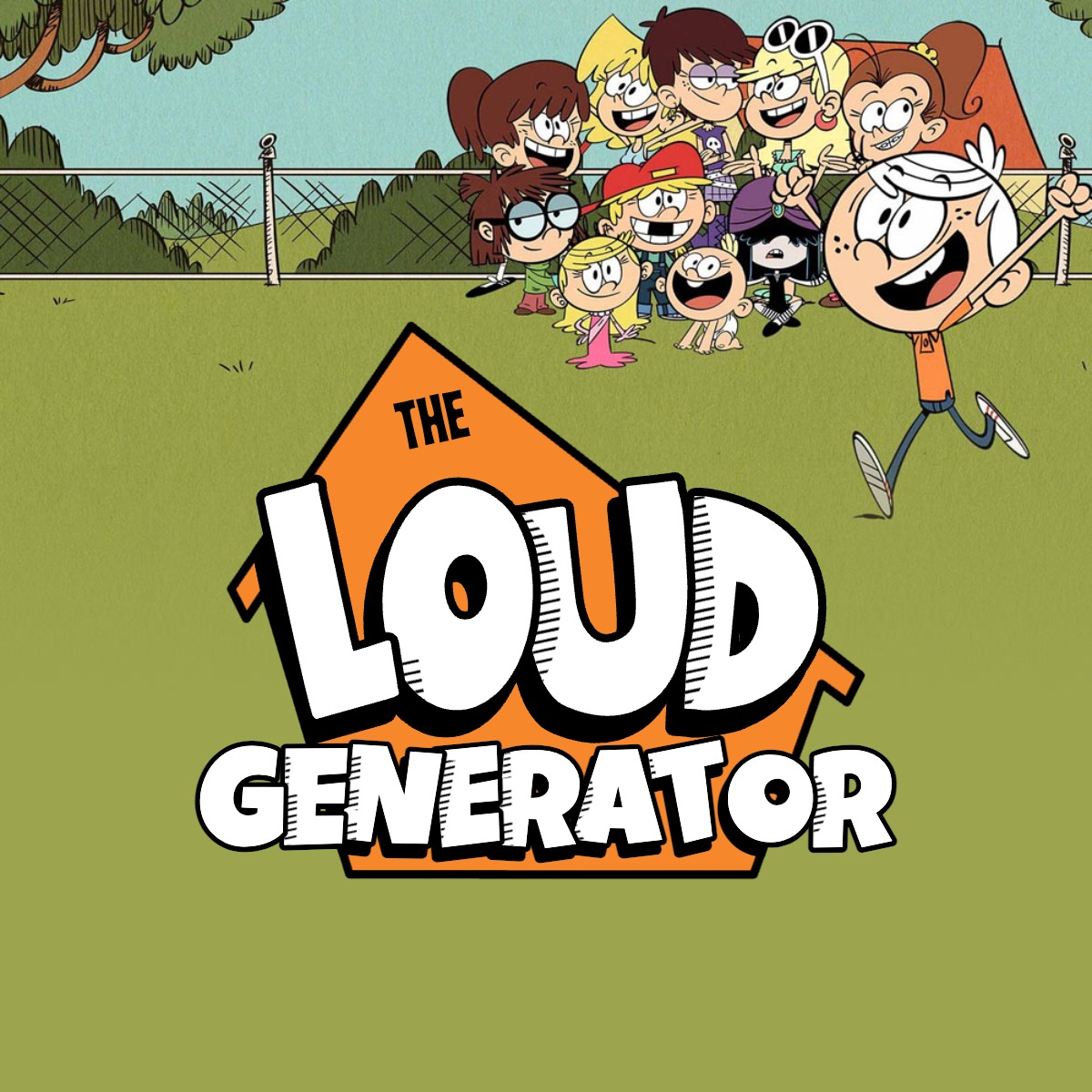
The Loud House Font and Logo Generator
The Loud House has one of the most distinctive title cards in modern animation. Bold white letters with thick black outlines, diagonal hatching shadows, and an orange house silhouette framing everything — it is a design that reads instantly, even at a glance. This generator lets you recreate that look with any text you choose and download the result as a full-resolution image.
Text Sizing and the House Shape
The generator places the top text (“THE” position) inside the orange house silhouette, clipped to the polygon so that only the portion within the shape is visible — exactly as in the original. The width available for each line of top text varies depending on where that line falls within the triangular roofline, so text near the peak is constrained to a narrower space than text lower in the shape. The generator calculates this automatically based on the actual house outline.
The main large text and bottom text sit centred over the house, and the house scales its width to match the widest line of main text. Shorter words produce a smaller house shape; longer words or phrases expand it proportionally up to the canvas edge.
About The Loud House
The Loud House premiered on Nickelodeon in May 2016, created by animator Chris Savino. The show centres on Lincoln Loud, an eleven-year-old boy navigating life as the only son among ten sisters in a chaotic family home in the fictional town of Royal Woods, Michigan. Each sister has a defined personality and aesthetic, from the rock-obsessed Luna to the gothic Lucy, giving the show a broad cast to rotate through storylines.
The series drew on influences from classic newspaper comic strips, particularly in its visual language — flat colour palettes, heavy outlines, and expressive character designs that feel rooted in mid-twentieth-century cartooning rather than the more fluid digital styles common in contemporary animation. That sensibility carries through to the logo, which uses chunky slab-like letterforms and manual-looking shadow hatching rather than anything that looks computer-generated.
The Show’s Impact and Expansion
The Loud House quickly became one of Nickelodeon’s highest-rated original series. It ran for multiple seasons and spawned a spin-off series, The Really Loud House, which translated the animated concept into a live-action format. A feature-length animated film, A Loud House Christmas, was released on Netflix in 2021, marking the first Nickelodeon animated original to appear on that platform. The franchise has also extended into comics, merchandise, and video games, cementing it as one of the more durable properties in recent Nickelodeon history.
The show was notably praised for its representation, featuring one of the first recurring gay married couples in a Nickelodeon animated series. It also introduced Lincoln’s friend Clyde McBride early in the run, and their friendship became a consistent throughline across the series.
The Visual Identity of the Logo
The Loud House title logo is built around three layered typographic elements stacked within and around an orange house-shaped silhouette. The word “THE” sits in small, slightly tilted lettering near the peak of the roof. “LOUD” dominates the centre in oversized white letterforms with rounded corners and a pronounced black stroke. “HOUSE” sits below in a slightly different typeface variant with a wider, more grounded feel.
The shadow treatment is one of the most recognisable details. Rather than a simple drop shadow, each letter carries a set of parallel diagonal lines extending from its body — a hatching technique borrowed from print illustration and comic book art. The lines taper to sharp points at their tips, giving the shadows a slightly spiky, energetic quality that suits the show’s chaotic tone.